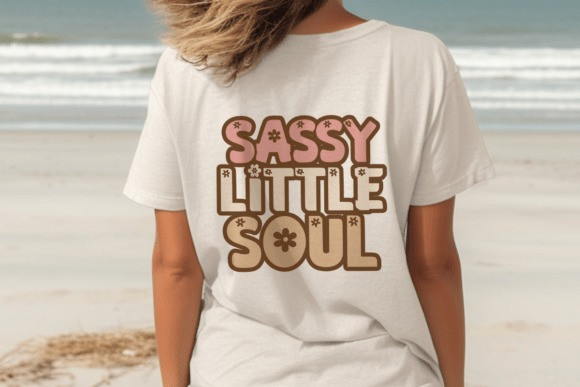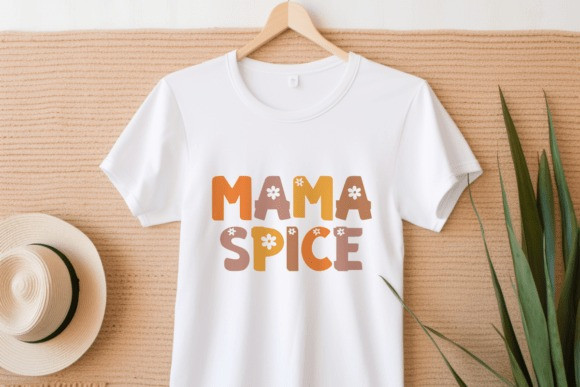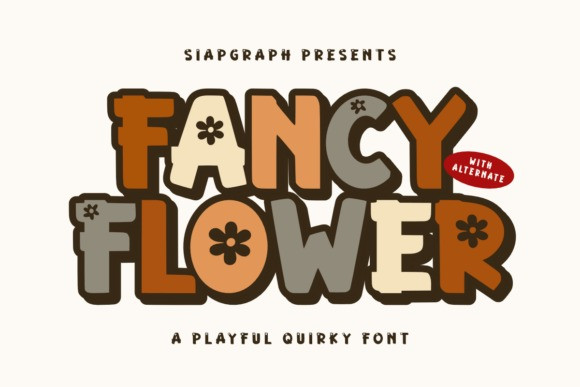
Fancy Flower Font
Fancy Flower Font is a playful and quirky retro font full of charm and creativity. Its bold and unique letterforms, combined with delightful floral details, make it perfect for adding a cheerful and fun touch to any design project. Whether you use it for branding, titles, wedding invitations, t-shirts, stickers, greeting cards, product packaging, posters, logos, or digital designs, Fancy Flower will bring your ideas to life with personality and style.